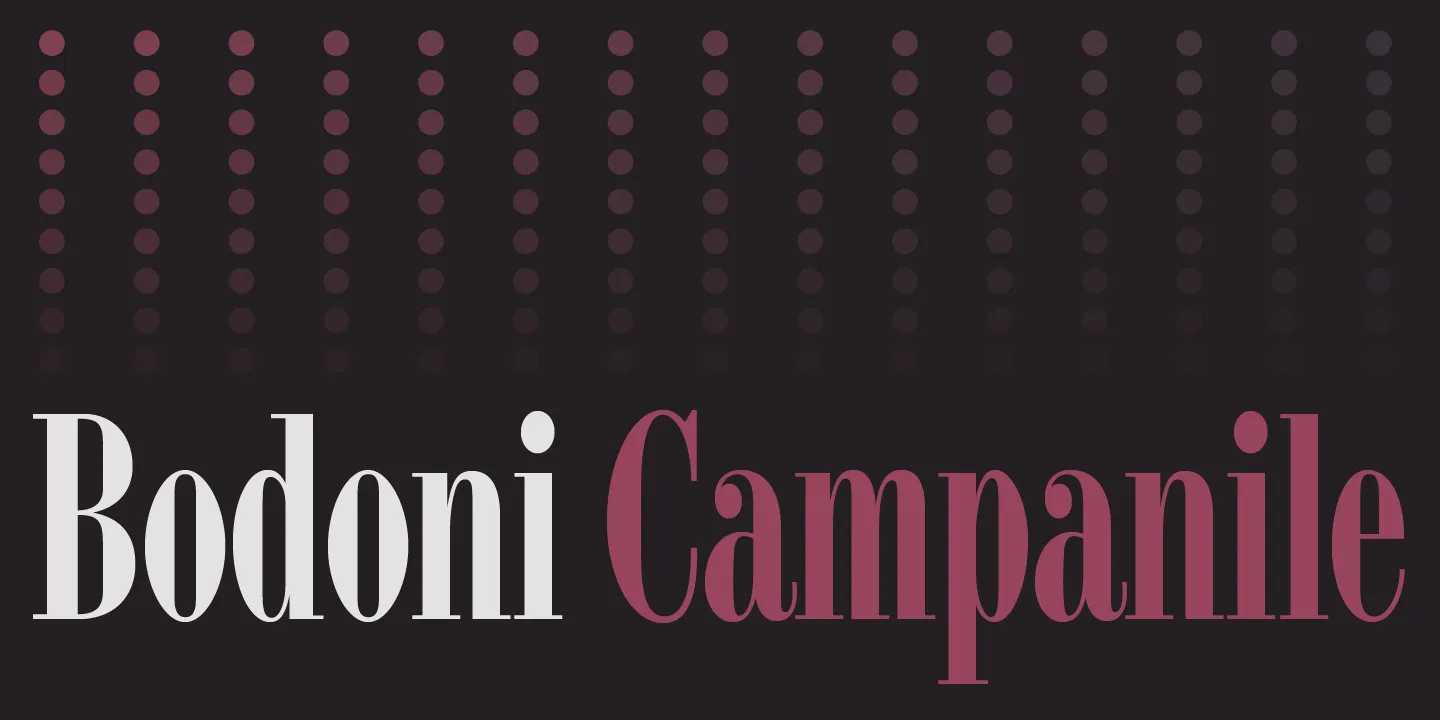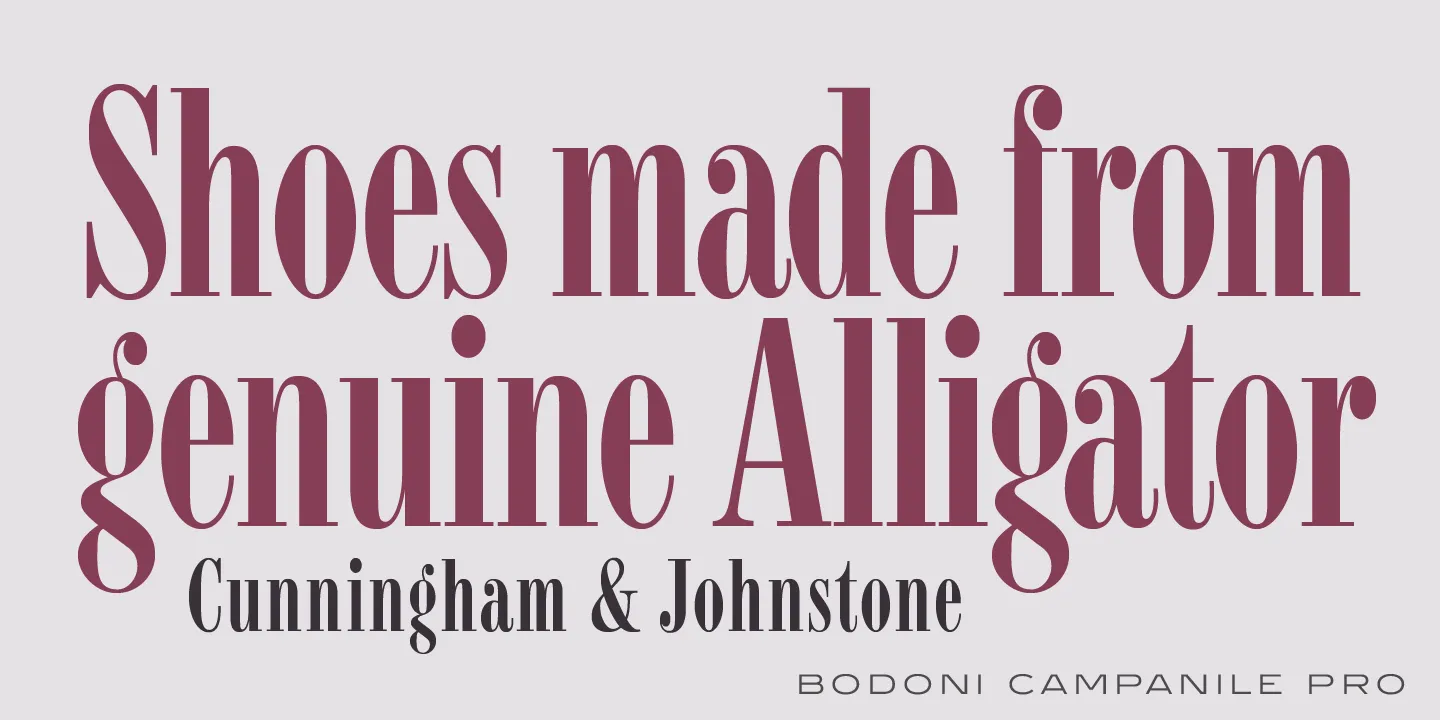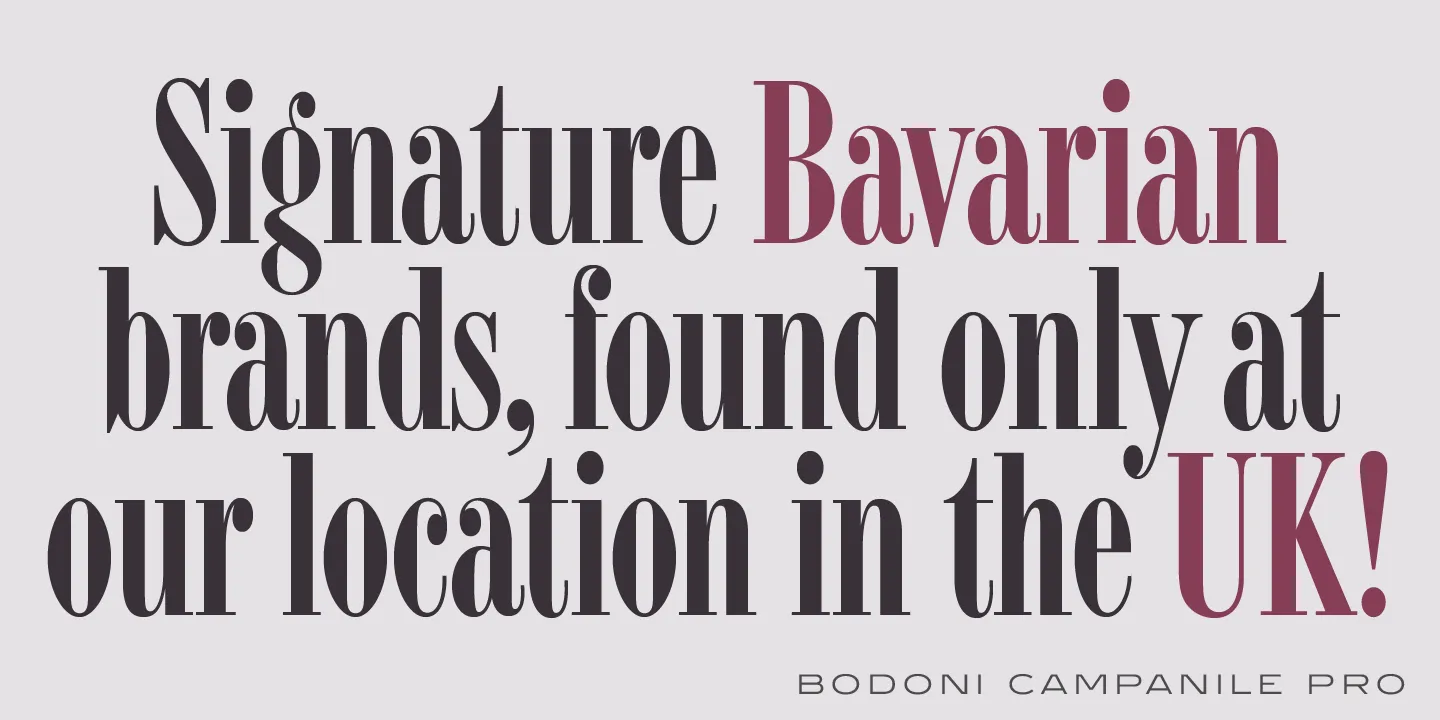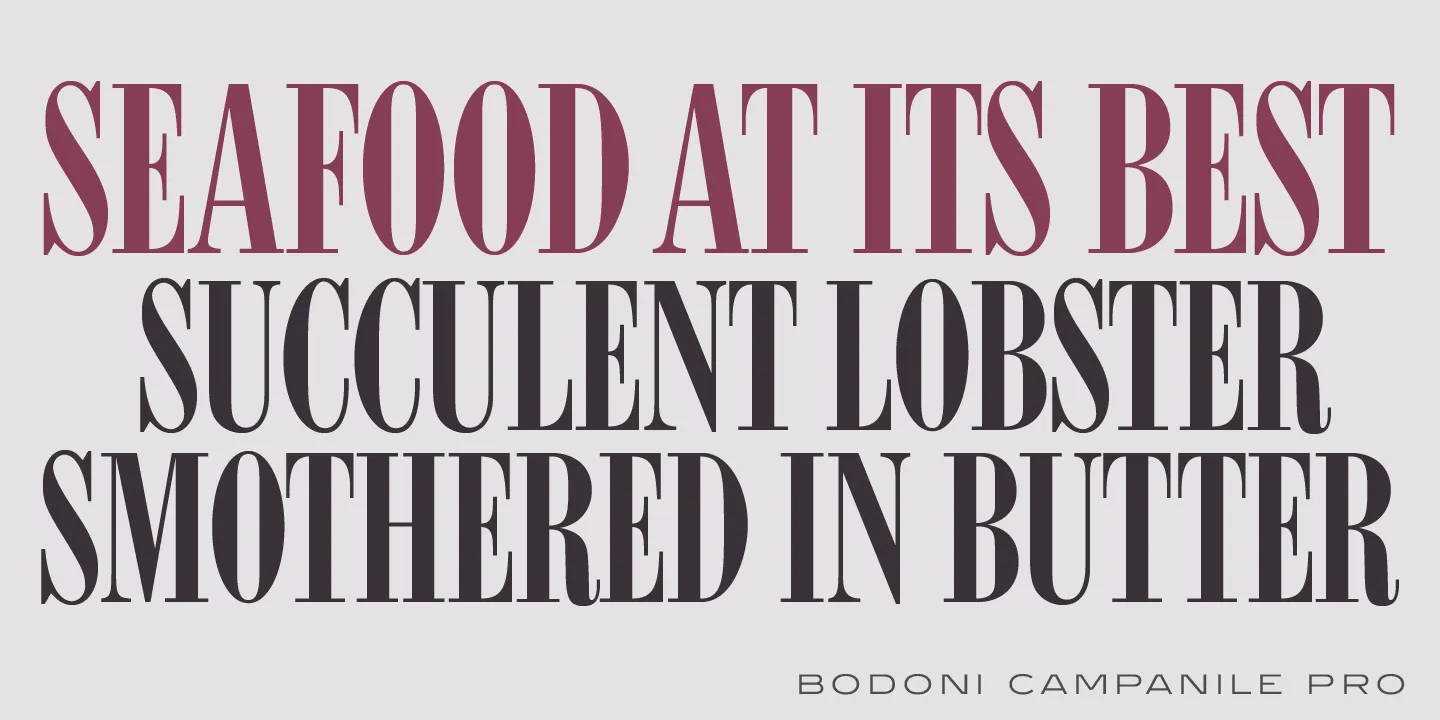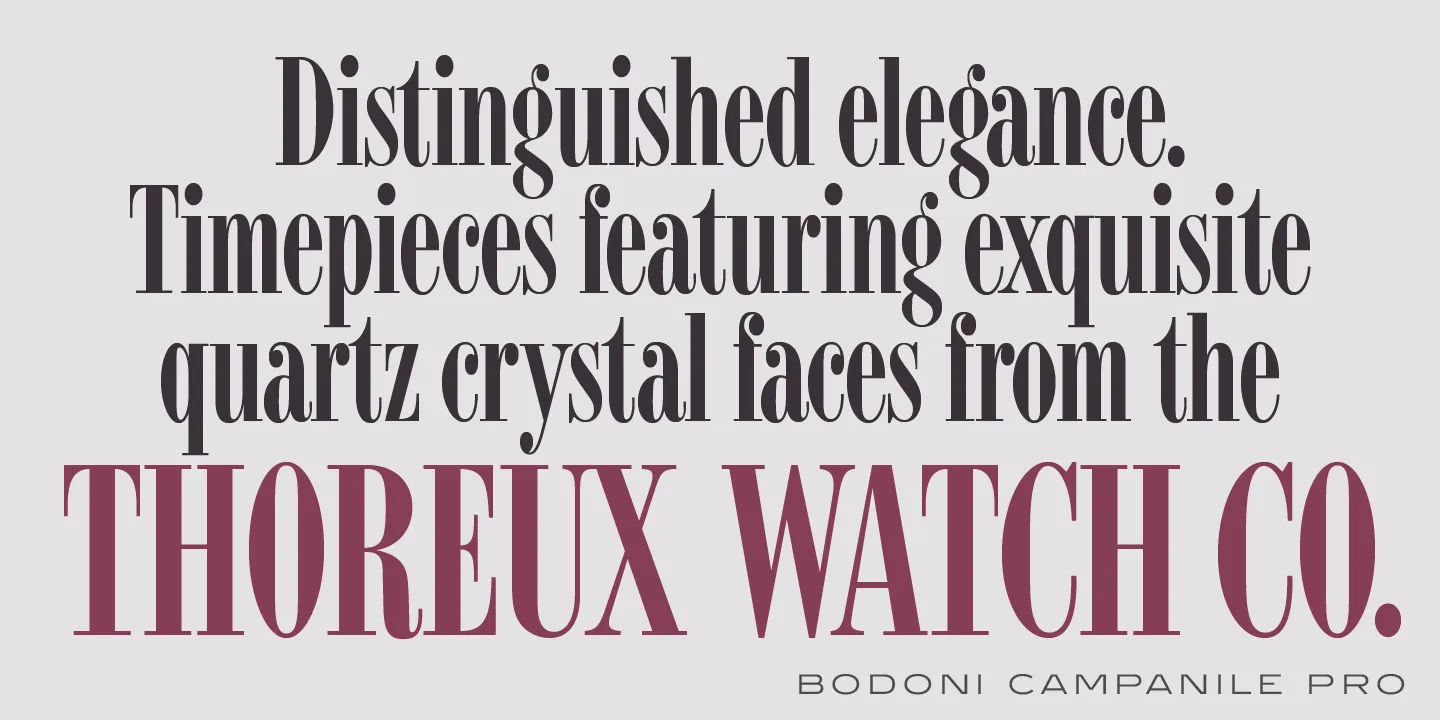
Bodoni Campanile Font
Bodoni Campanile is a font that bridges the gap between a “fat” and a compressed traditional serif typeface. It was originally designed in 1936 by Robert H. Middleton for Ludlow. International TypeFounders exclusively licensed the family from the Ludlow Collection, and Steve Jackaman (ITF) produced a digital version in 1998. Jackaman completely redrew the font for its 2017 release. Bodoni Campanile, much like its transitional status as a font, is successful in both formal and casual roles. The free-flowing aspects of the family, seen especially in the lowercase ‘g’ and the leg of the uppercase ‘R,’ give the family an air of elegance.
Part of the Ludlow Collection
OpenType Features
• Common Ligatures
• Fractions
• Ordinal Numerals
• Stylistic Alternates
• Stylistic Sets
• Subscript
• Superscript